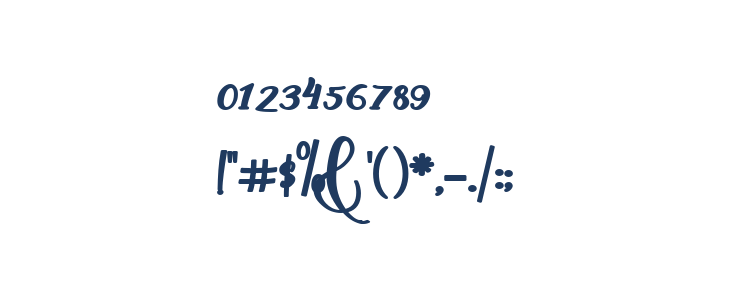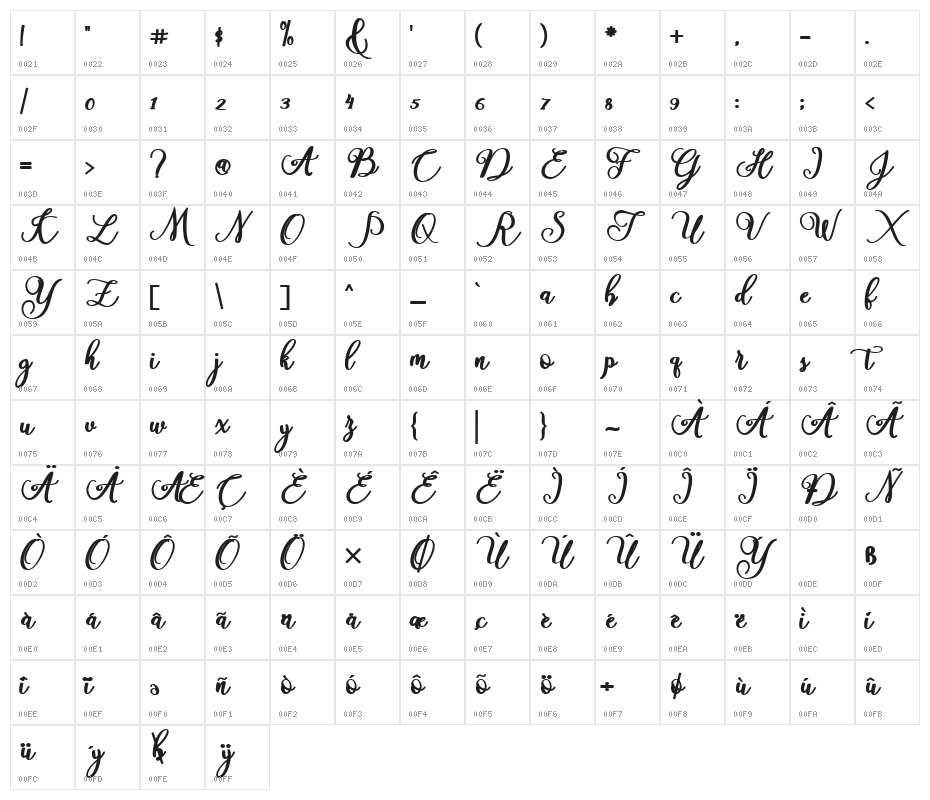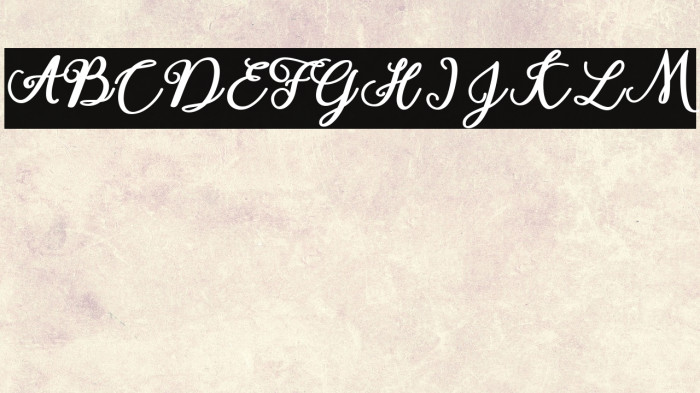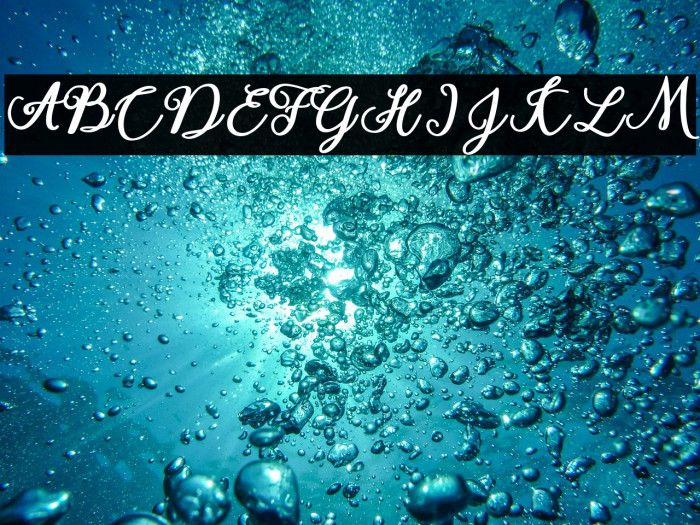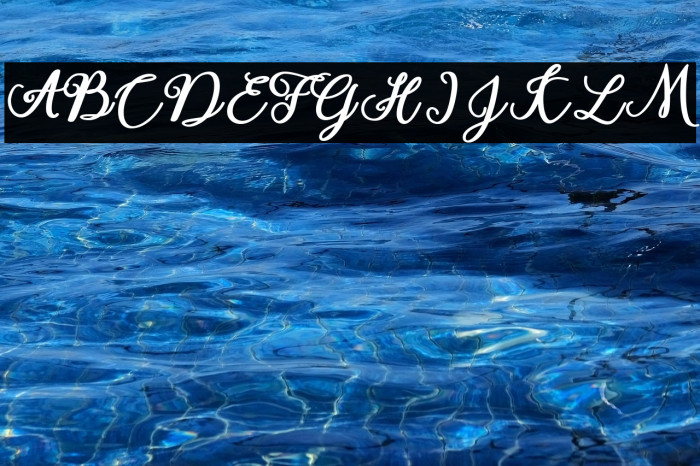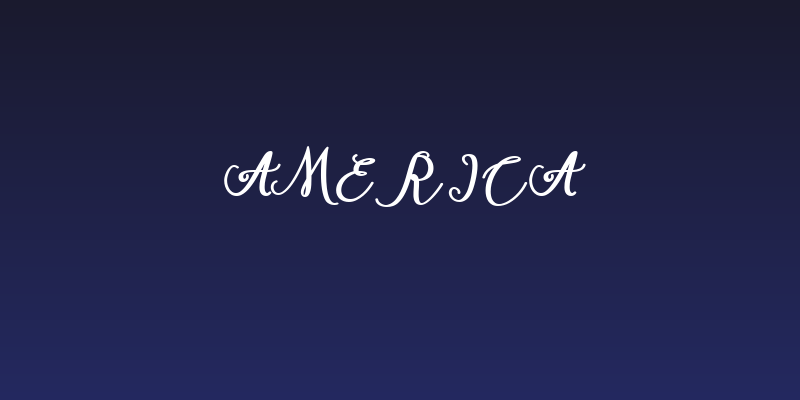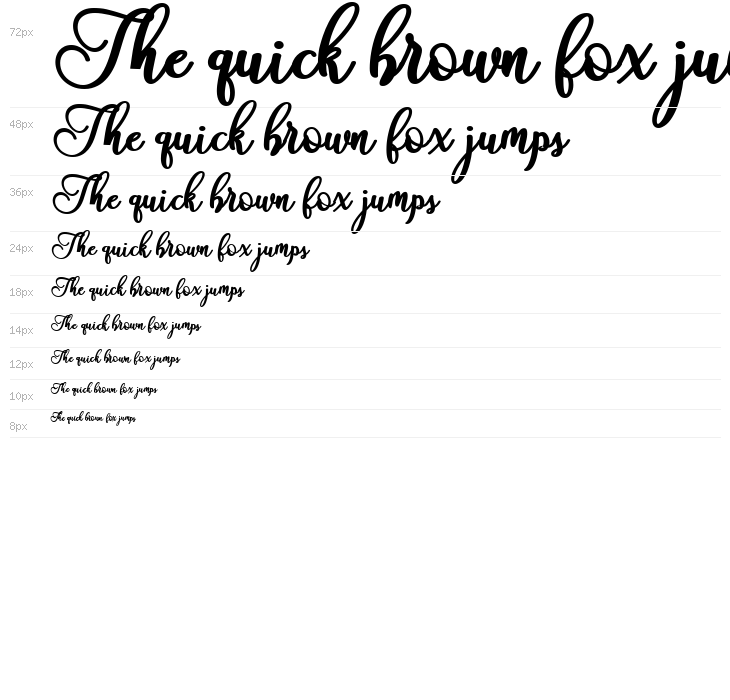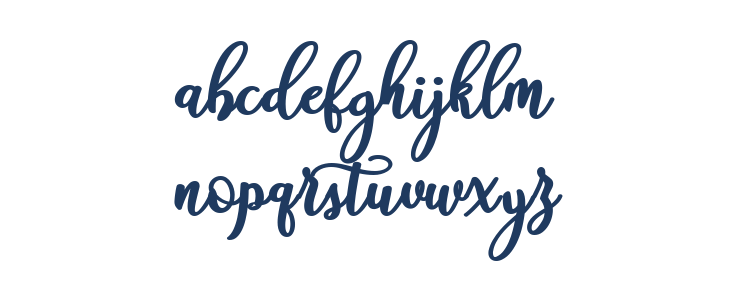
America Font
America Description
This font features a flowing, cursive style with elegant loops and swashes, giving it a sophisticated and artistic appearance. The uppercase letters are particularly ornate, with intricate curves and flourishes that add a touch of elegance. The lowercase letters maintain a consistent style, with smooth, connected strokes that enhance readability while retaining a decorative flair. The numerals and special characters are designed to match the overall aesthetic, ensuring a cohesive look across all text elements. This font is ideal for projects that require a touch of elegance and creativity.